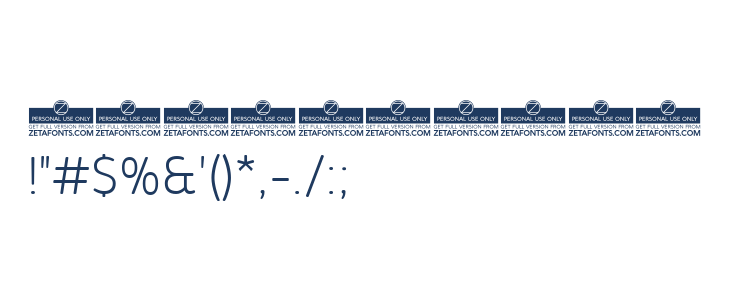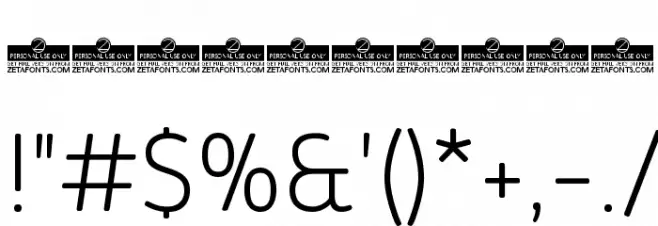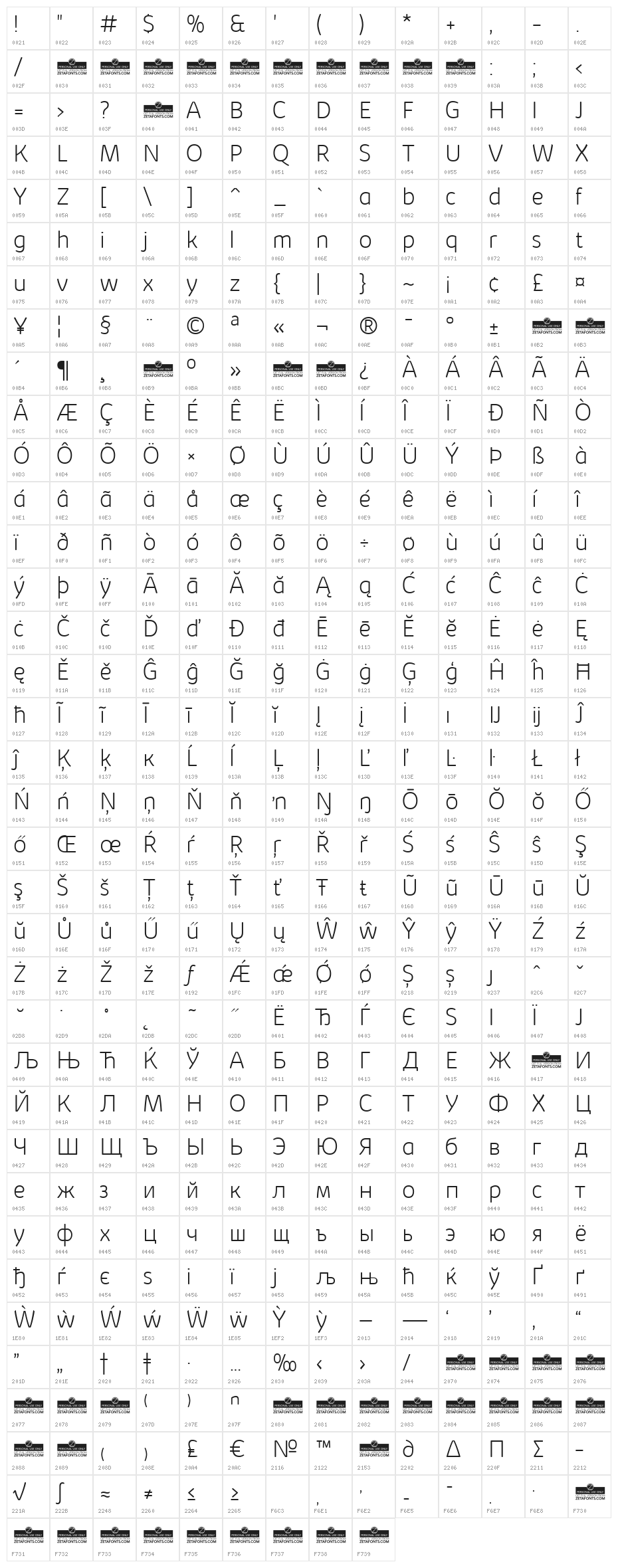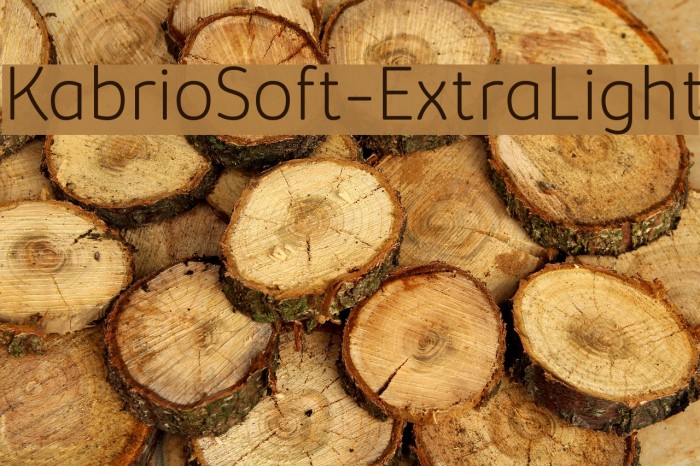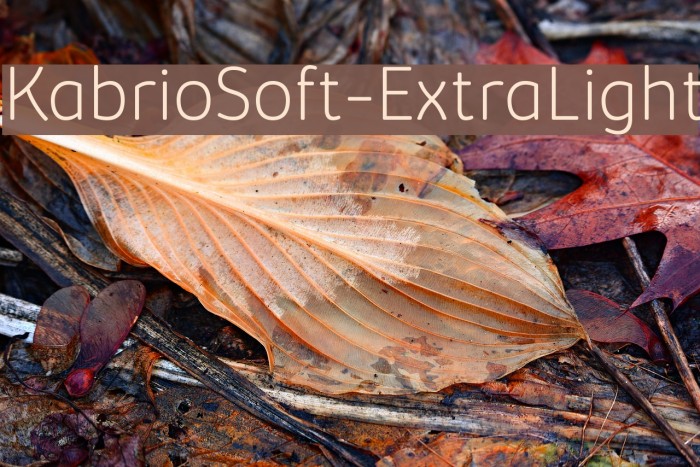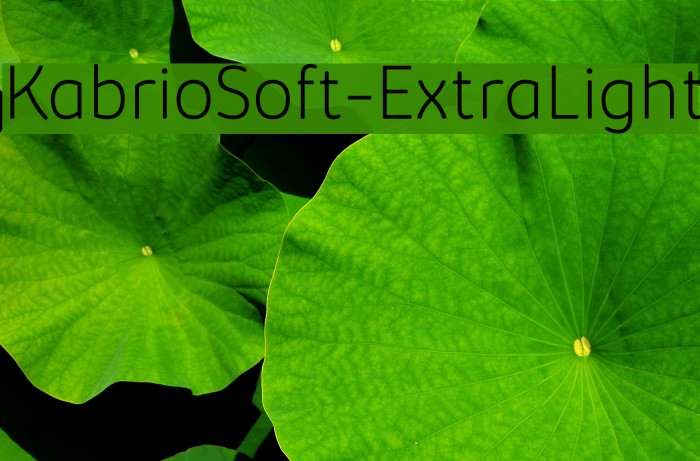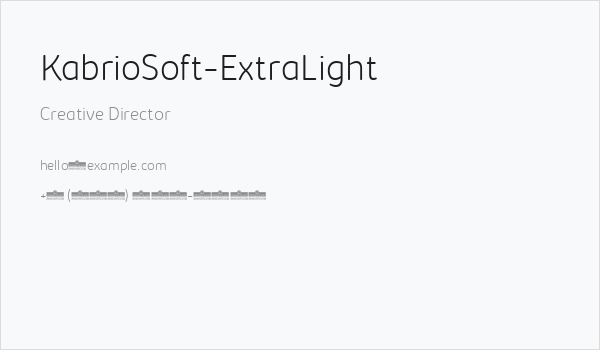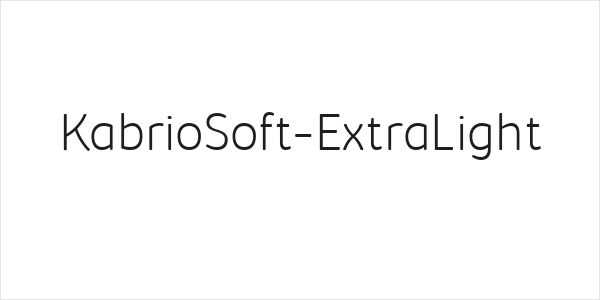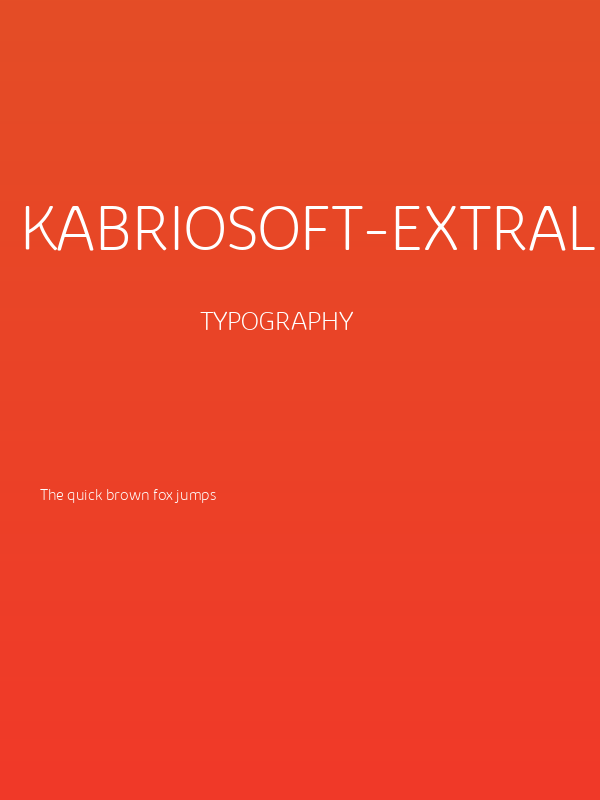
KabrioSoft-ExtraLight Font
KabrioSoft-ExtraLight Description
This font features a clean and modern design with a minimalist aesthetic. The characters are crafted with a uniform stroke width, giving it a sleek and contemporary appearance. The uppercase and lowercase letters are well-proportioned, with a slight curvature that adds a touch of elegance. The numerals and special characters maintain the same design consistency, ensuring readability and versatility. Its simplicity makes it suitable for a wide range of applications, from digital interfaces to print media.
| Proposed Projects | Ideal for digital interfaces, branding, advertising, and print media. |